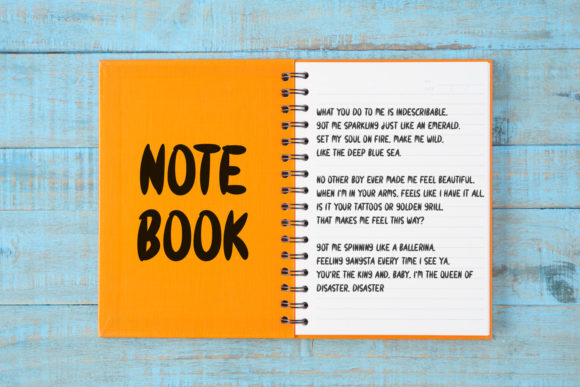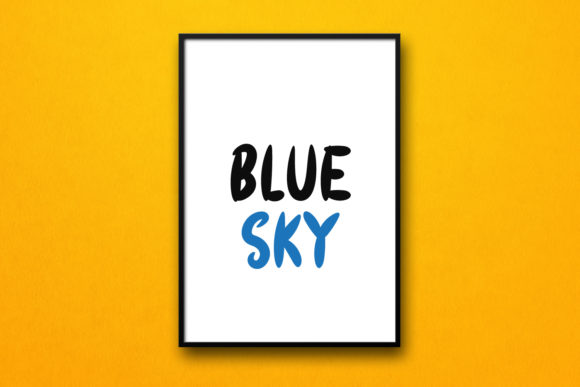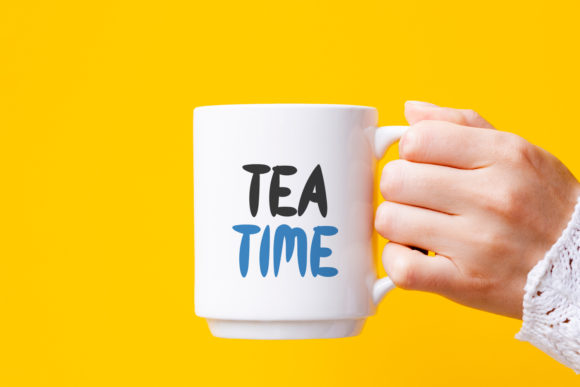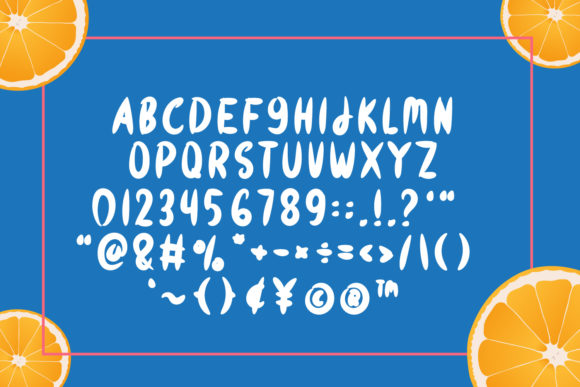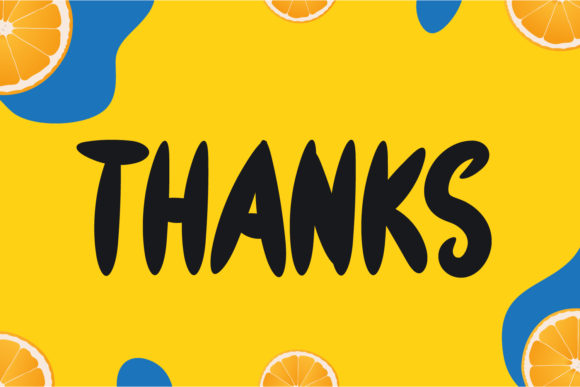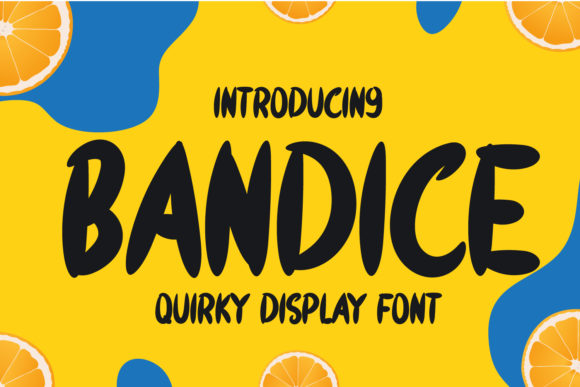
Introducing Bandice Font: The Bold and Fun Handwritten Font for Stunning Designs
Are you a designer or crafter looking for a font that can add a touch of personality and whimsy to your projects? Look no further than Bandice Font! This bold and fun handwritten font is perfect for making your ideas stand out and creating spectacular designs that capture attention.
What is Bandice Font?
Bandice Font is a unique and eye-catching handwritten font that is designed to add a touch of playfulness and sophistication to your designs. With its bold and expressive letters, Bandice Font is perfect for creating stunning titles, headings, and text that demands attention.
Key Features of Bandice Font
• Bold and Fun Design: Bandice Font features bold and fun lettering that is sure to make your designs stand out.
• Handwritten Style: This font has a beautiful handwritten style that adds a touch of personality and whimsy to your projects.
• High-Quality Design: Bandice Font is designed with high-quality and clear lettering, making it perfect for use in a variety of design projects.
Uses for Bandice Font
Bandice Font is a versatile font that can be used in a variety of design projects, including:
• Branding and Logo Design: Use Bandice Font to create bold and eye-catching logos and branding materials.
• Social Media Graphics: Add a touch of personality to your social media graphics with Bandice Font.
• Invitations and Party Decor: Use Bandice Font to create fun and playful invitations and party decor.
• Packaging Design: Add a touch of whimsy to your packaging design with Bandice Font.
Tips for Using Bandice Font
Here are a few tips for getting the most out of Bandice Font:
• Use it as a Title Font: Bandice Font is perfect for use as a title font, adding a bold and eye-catching touch to your designs.
• Experiment with Colors: Try pairing Bandice Font with a variety of colors to add depth and interest to your designs.
• Mix and Match with Other Fonts: Don’t be afraid to mix and match Bandice Font with other fonts to create a unique and visually appealing design.
Why Choose Bandice Font?
So why choose Bandice Font for your design projects? Here are just a few reasons:
• Unique and Eye-Catching Design: Bandice Font features a unique and eye-catching design that is sure to make your designs stand out.
• High-Quality and Clear Lettering: This font features high-quality and clear lettering, making it perfect for use in a variety of design projects.
In conclusion, Bandice Font is a bold and fun handwritten font that is perfect for designers and crafters looking to add a touch of personality and whimsy to their projects. With its unique and eye-catching design, high-quality lettering, and ease of use, Bandice Font is a great choice for a variety of design projects. So why wait? Download Bandice Font today and start creating stunning designs that capture attention!